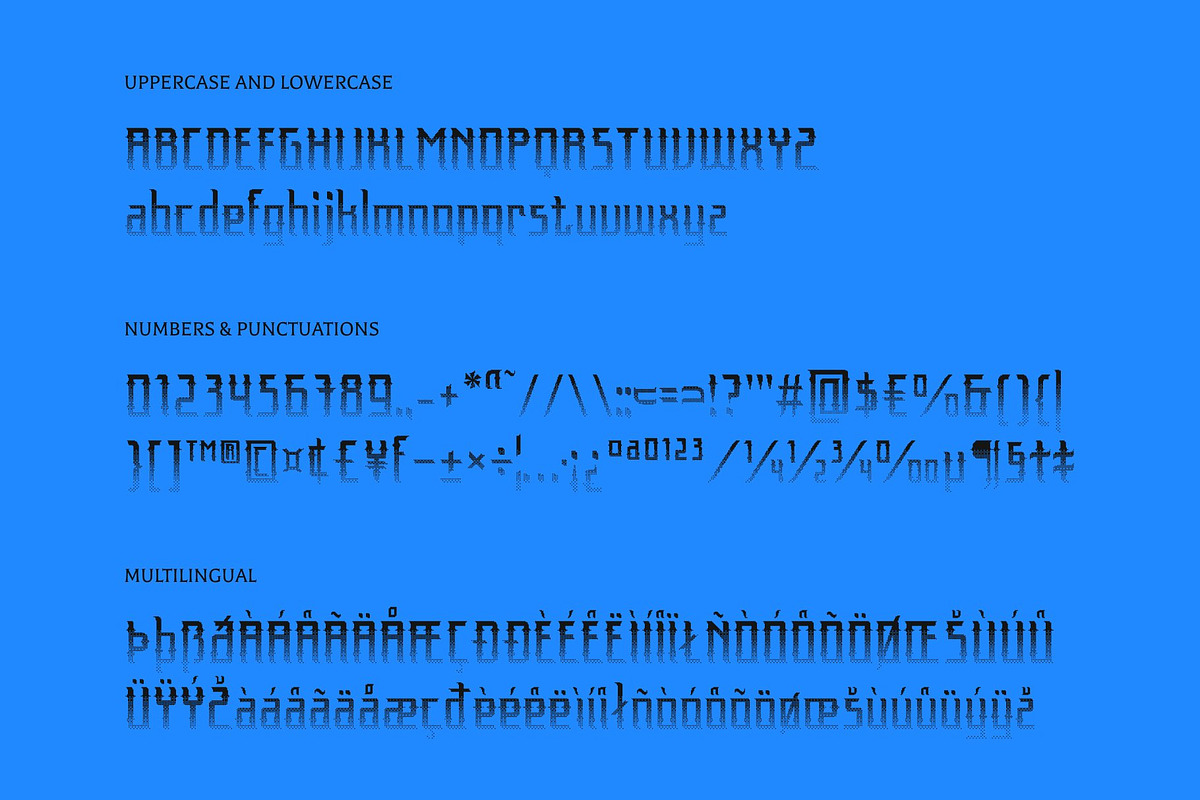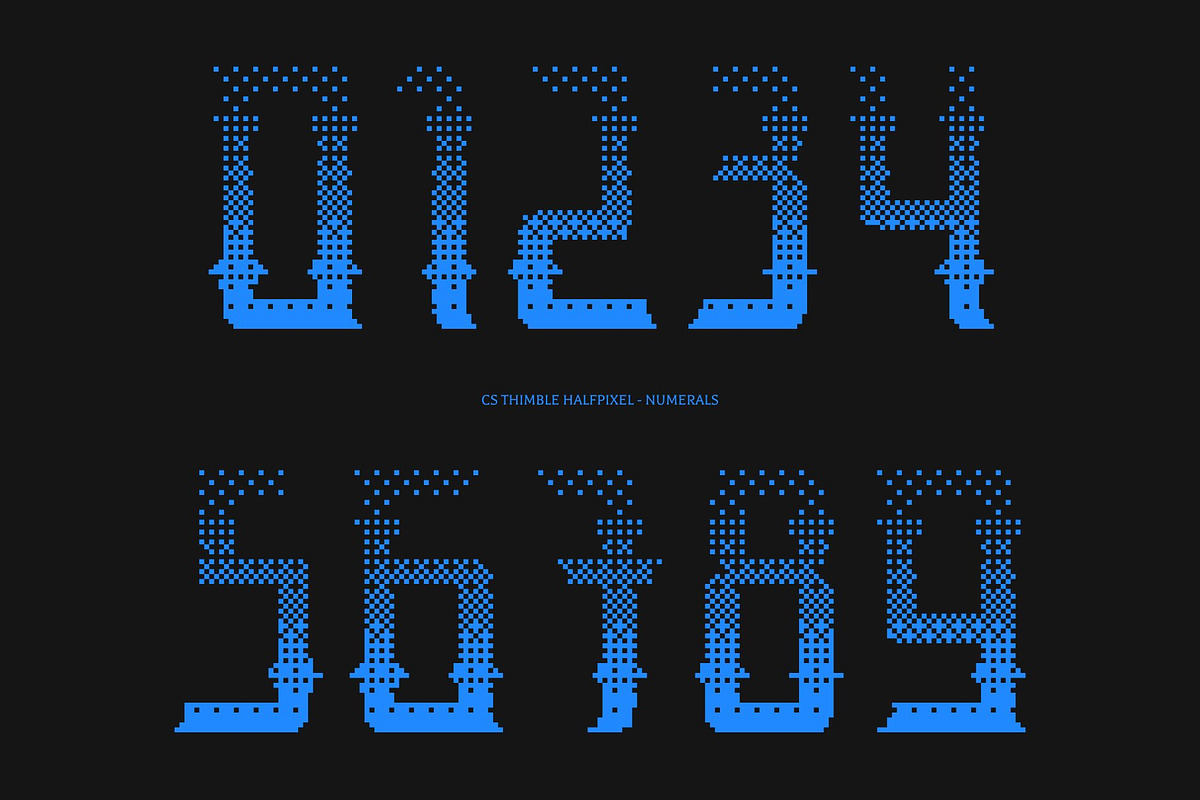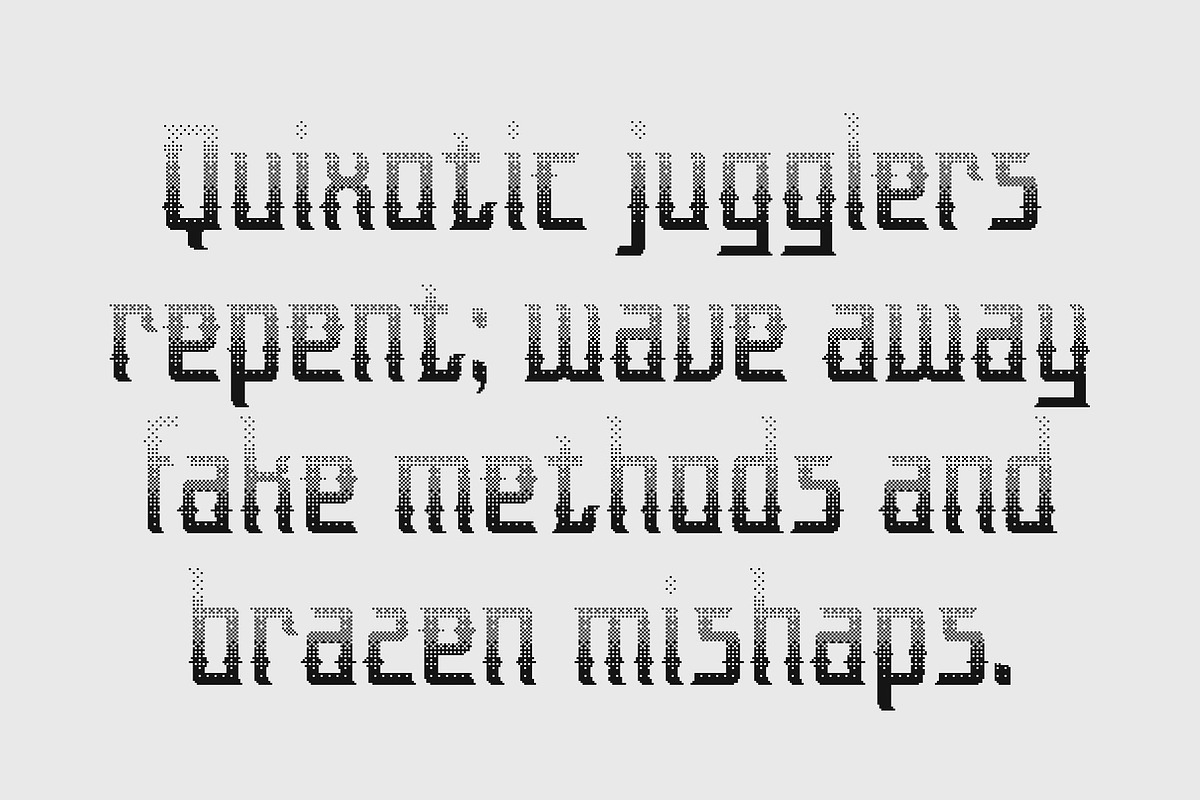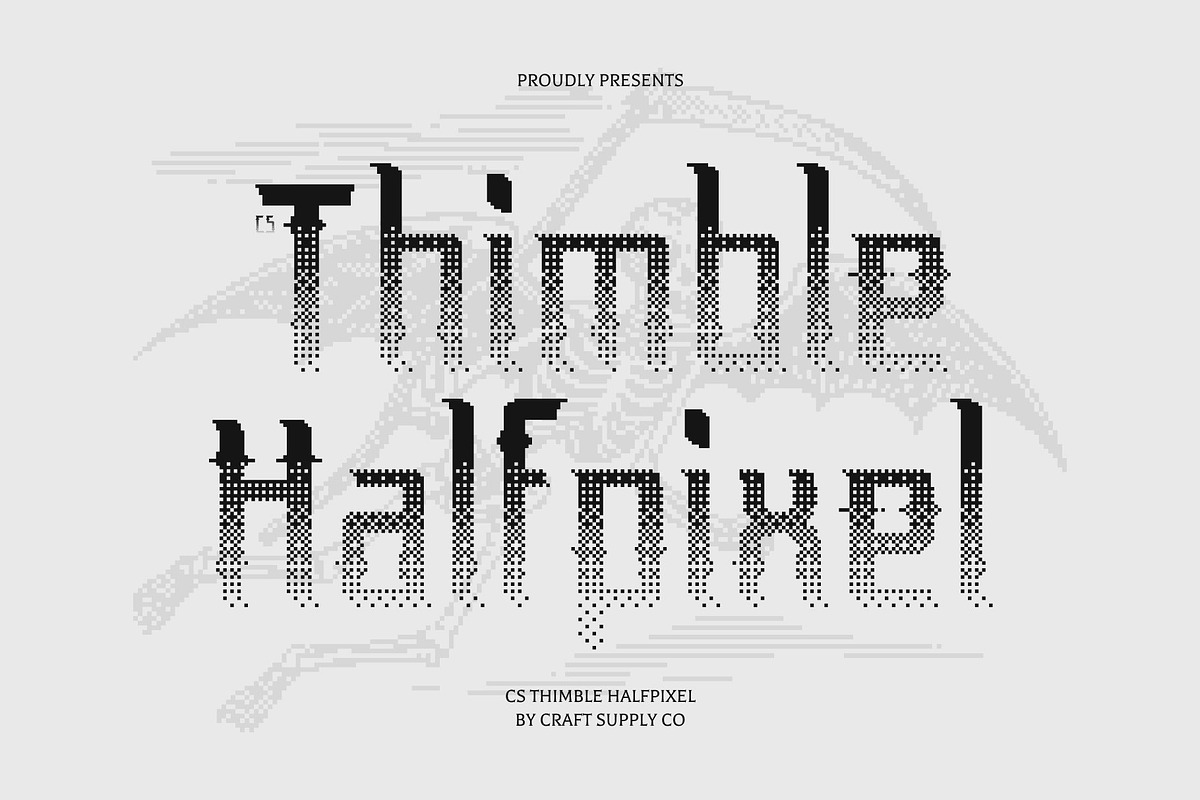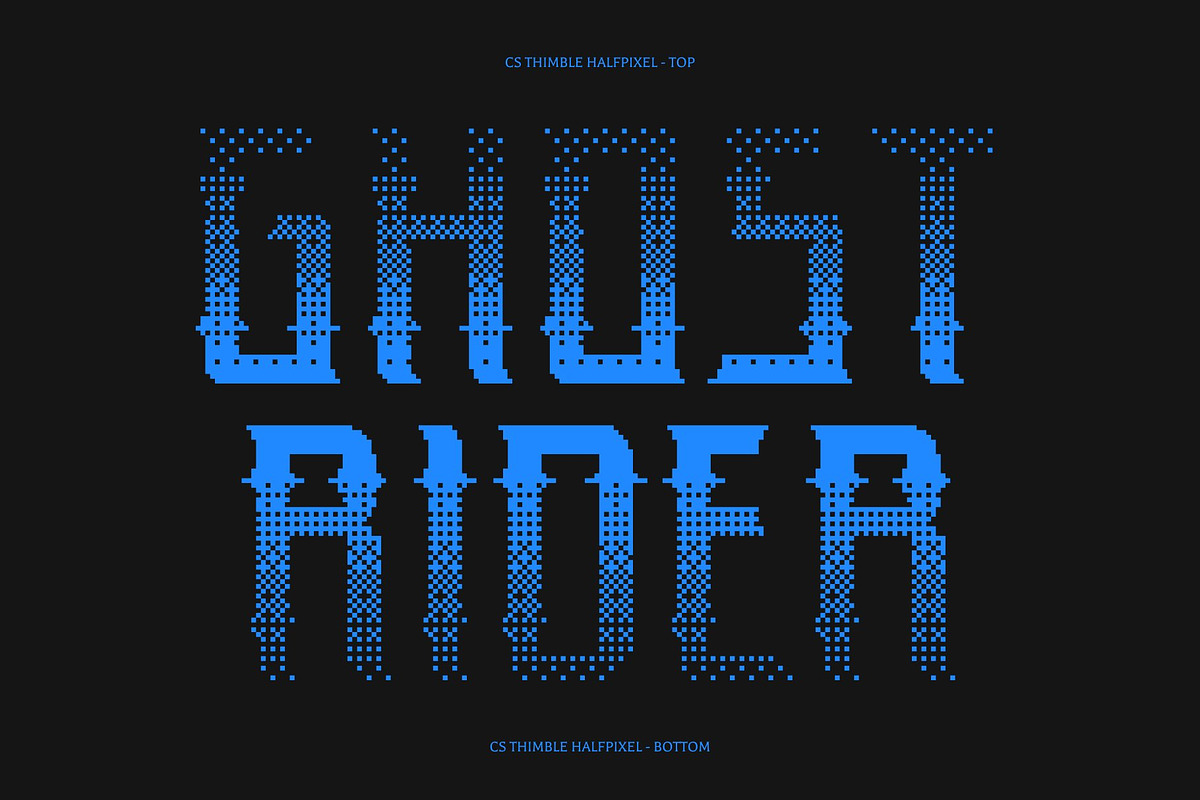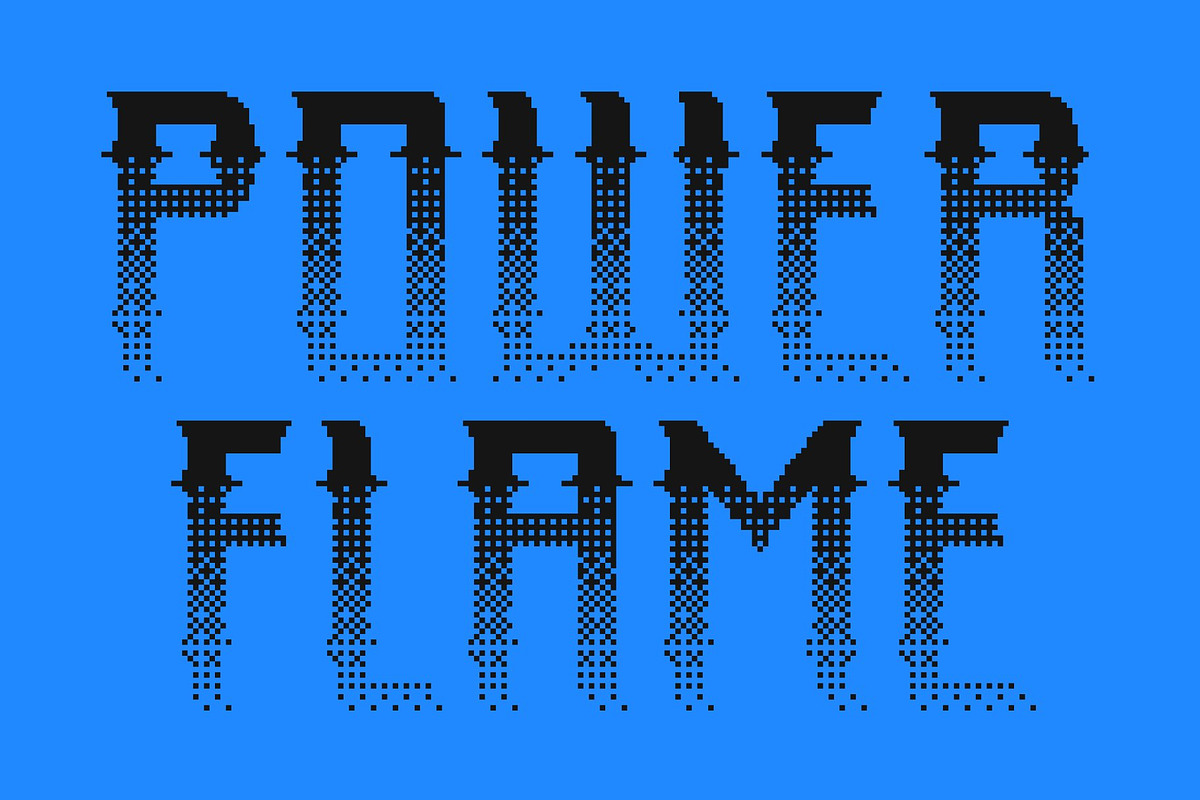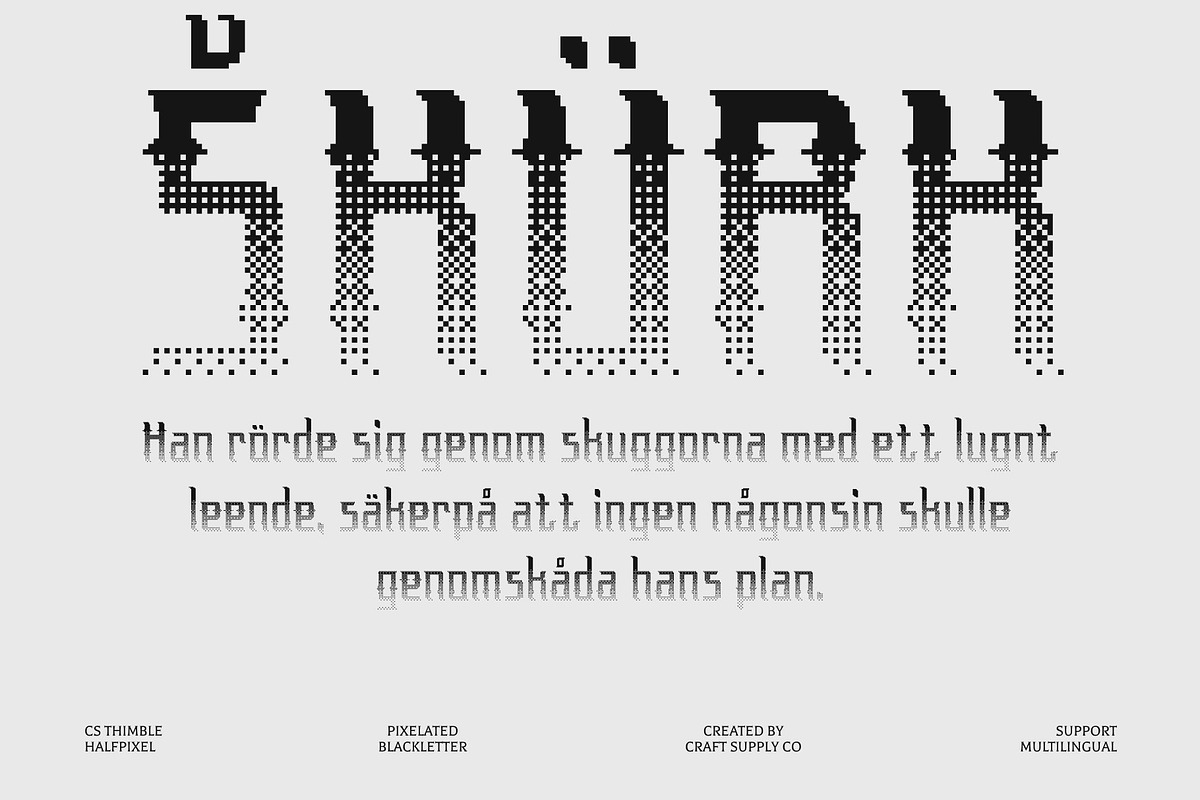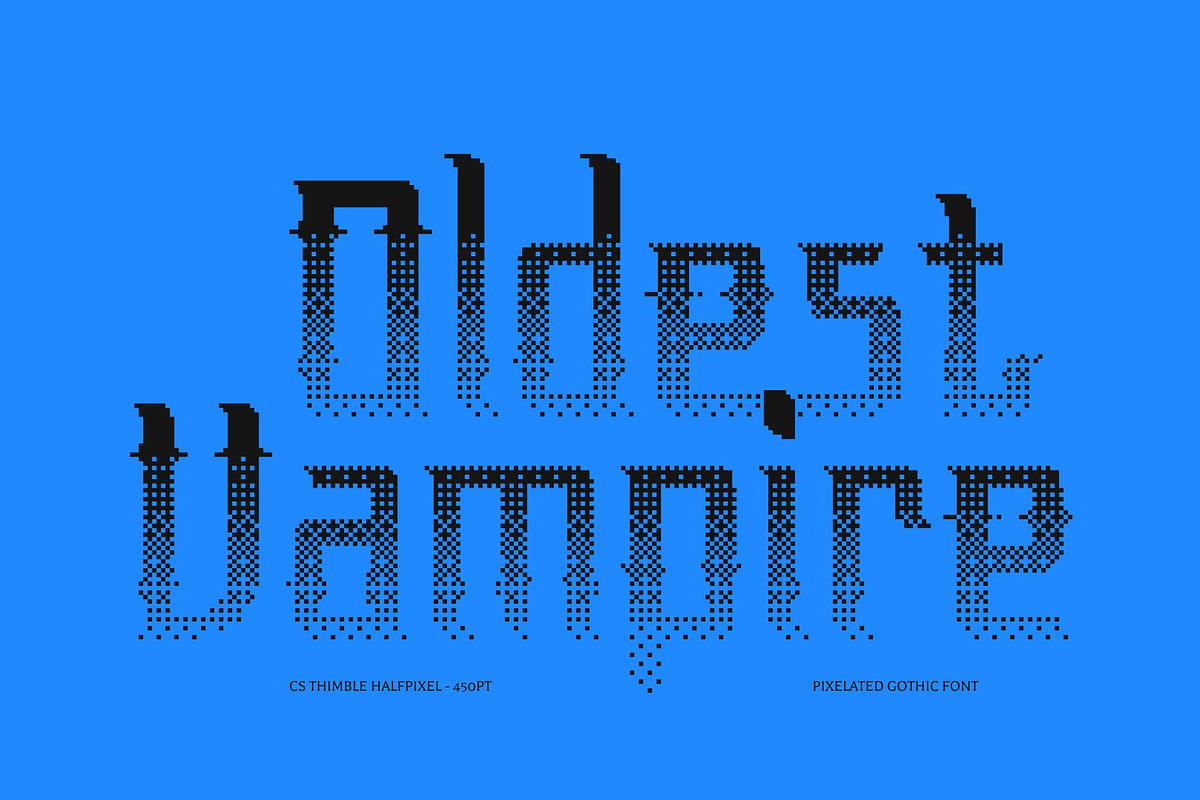
CS Thimble Halfpixel
CS Thimble Halfpixel – Gothic Display Font
Mystical Elegance with Gothic Character This is a dramatic gothic display typeface inspired by the beauty of medieval script. Its ornate letterforms feature intricate detailing, elegant curves, and a striking balance of thick and thin strokes, creating a powerful and captivating visual presence.
Inspired by Medieval Artistry Drawing from the enchanting aesthetics of historical handwriting, this font evokes a sense of mystery, fantasy, and timeless craftsmanship. Its decorative structure makes it ideal for projects that explore dark, magical, or historical themes.
Halfpixel Finish for Smooth Digital Texture The halfpixel treatment introduces subtle anti-aliasing that softens the edges of each letter, creating a smoother appearance while preserving the gothic character. This blend of classic ornamentation and retro-digital refinement enhances clarity across both print and screen.
Perfect for Fantasy and Atmospheric Design From fantasy book covers and movie posters to themed event invitations, Halloween graphics, and heritage branding, this font brings depth and atmosphere to every design.
Where Mystery Meets Modern Refinement Combining gothic tradition with contemporary digital smoothing, this font delivers a unique typographic voice that feels both historic and modern.